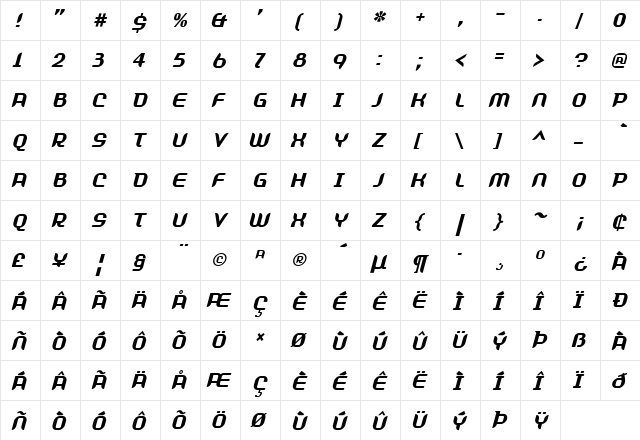
Shifty Medium Italic Font Preview
Shifty Medium Italic
Design Context for Shifty Typeface
Shifty is a composed and adaptable typeface that performs quietly and consistently across a wide range of design contexts. The slanted form adds forward momentum and visual energy.
Pro Tip: Try Shifty for annotation and caption copy alongside an upright companion — the contrast in angle creates a dynamic but ordered typographic system.